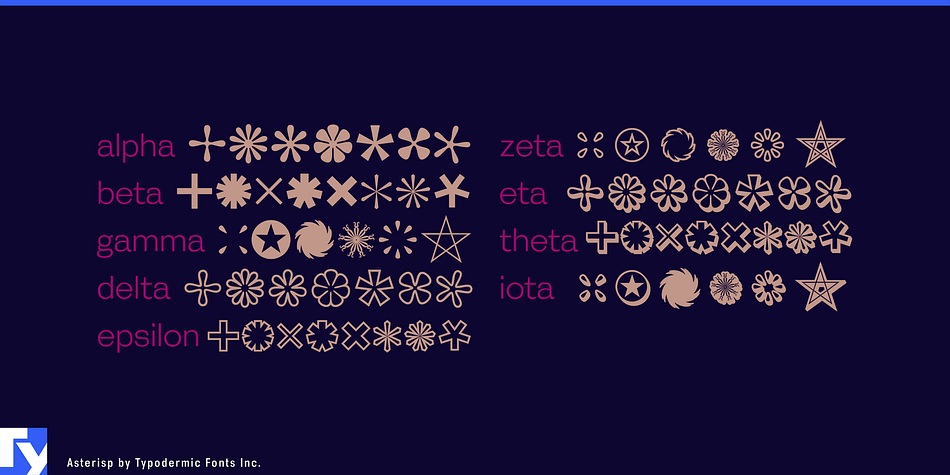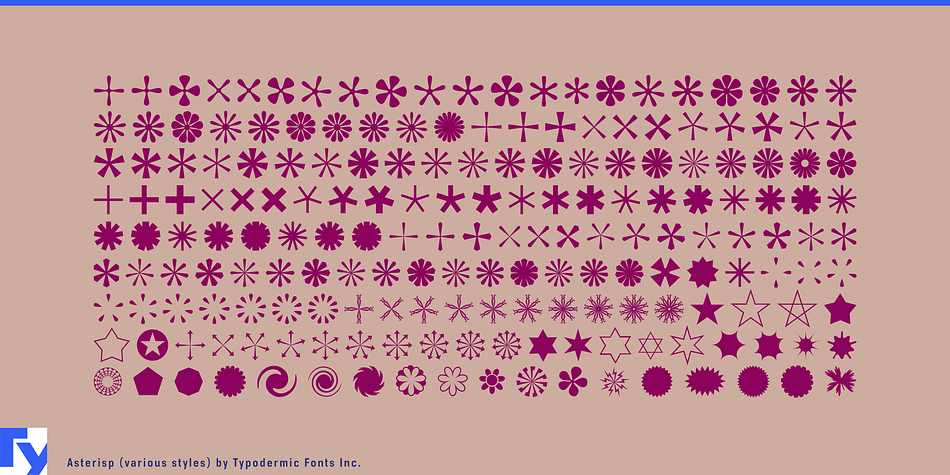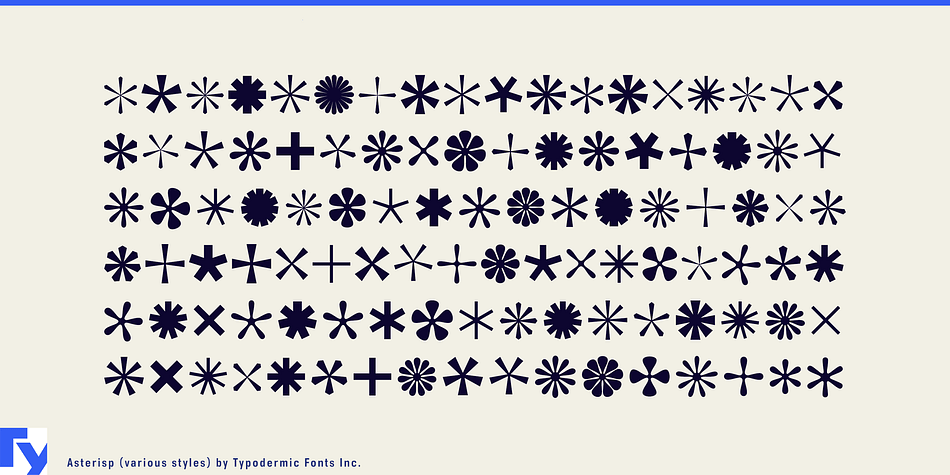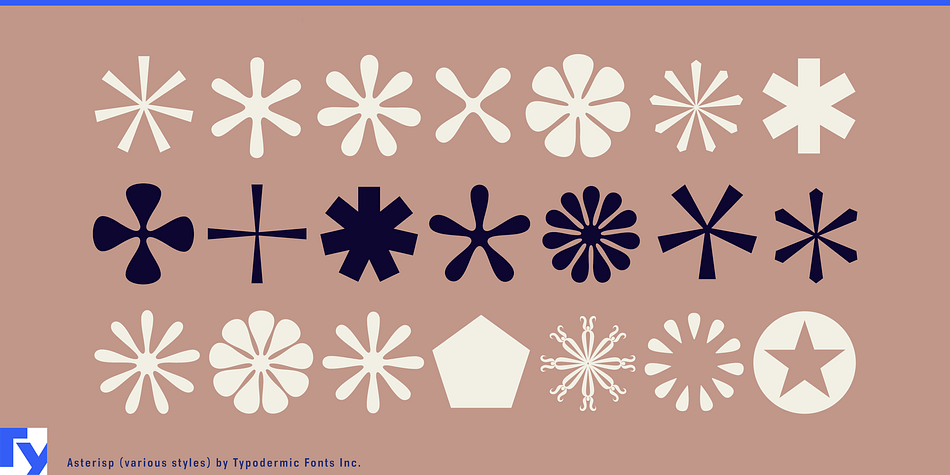
Asterisp is a dingbat font family. This typeface has nine styles and was published by Typodermic Fonts Inc.
Asterisp is a collection of 4,5,6,7,8,9,10,12 and 13-sided asterisks in a flurry of designs: flashes, flowers, stars, splats, snowflakes and balloons.